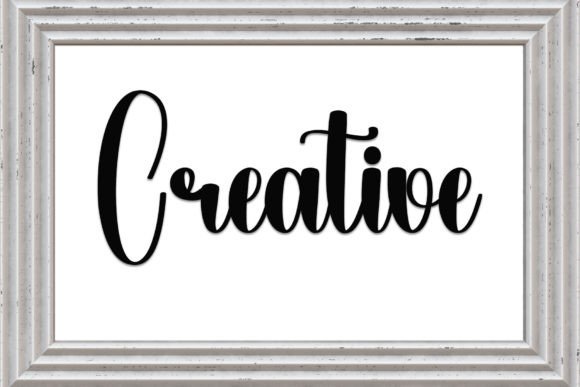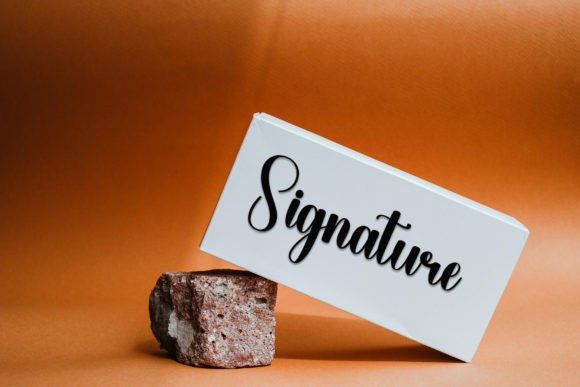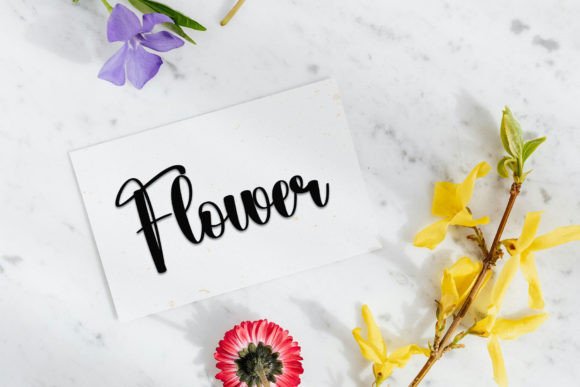
Introduction to Back to School Font
Back To School is a neat and beautiful handwritten font described by an elegant touch, perfect for your favorite projects Fall in love with its incredibly distinct and timeless style, and use it to create spectacular designs.
Key Features of Back to School Font
Why Choose Back to School Font?